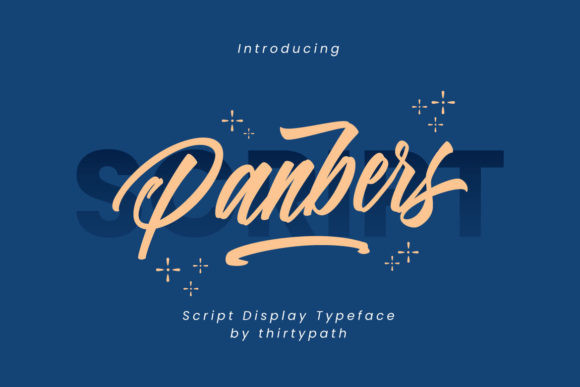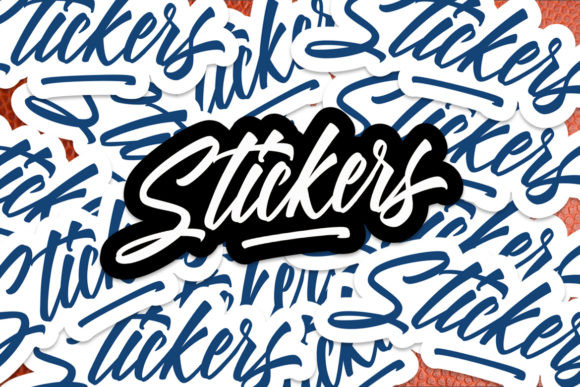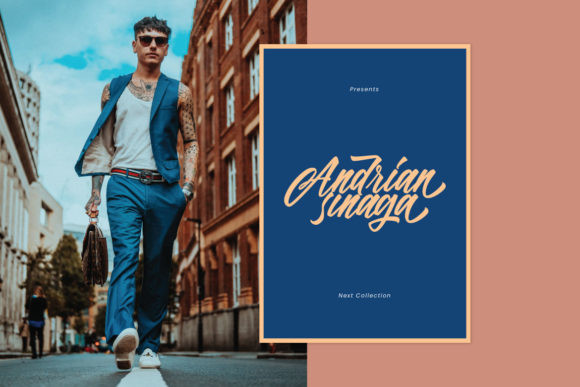
Panbers Font
Panbers is a cute and modern handwritten font with an incredibly friendly feel. Whether it’s for web, print, moving images or anything else- Panbers will look spectacular.